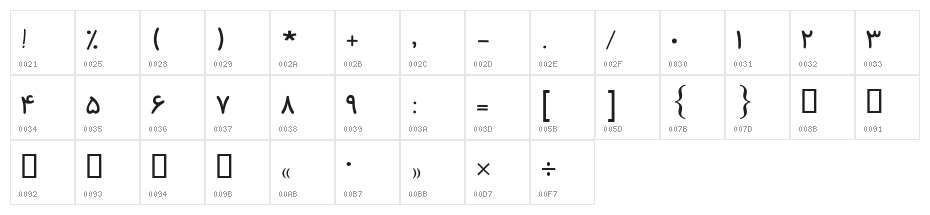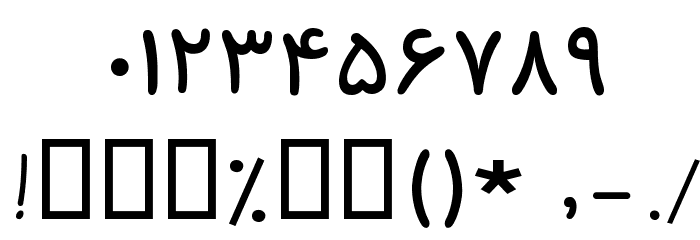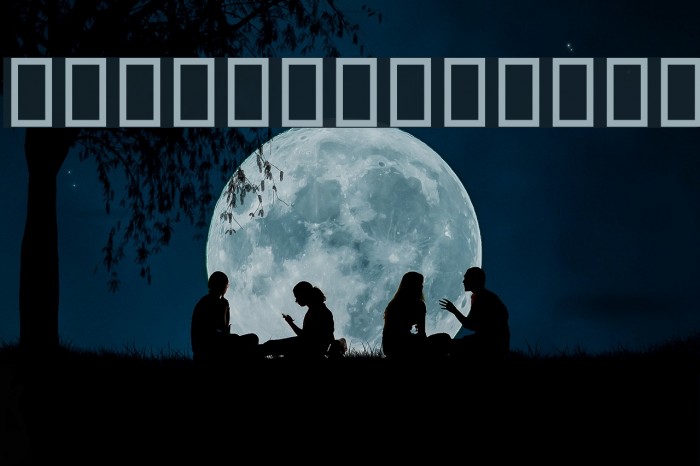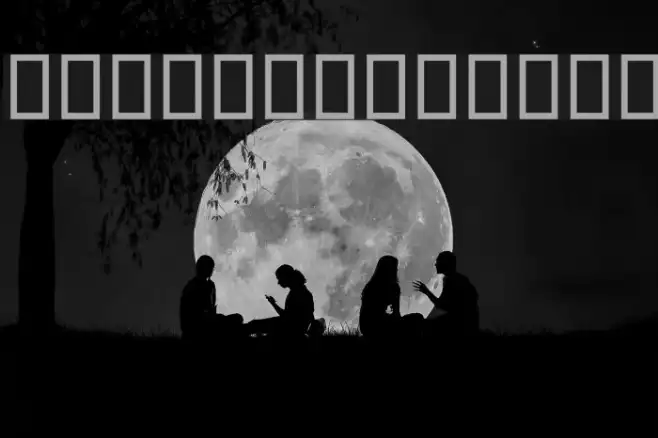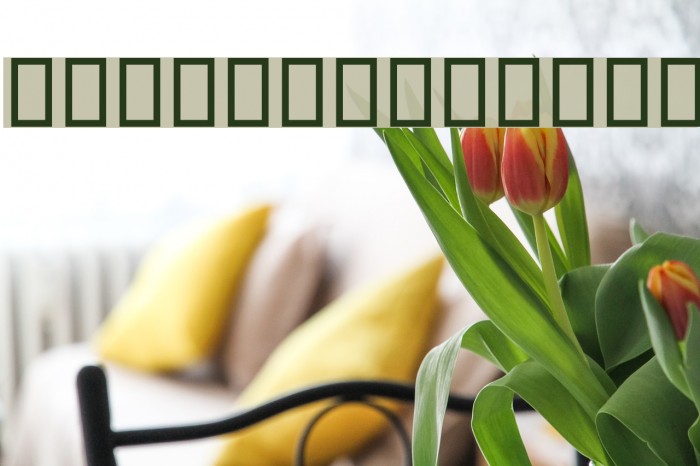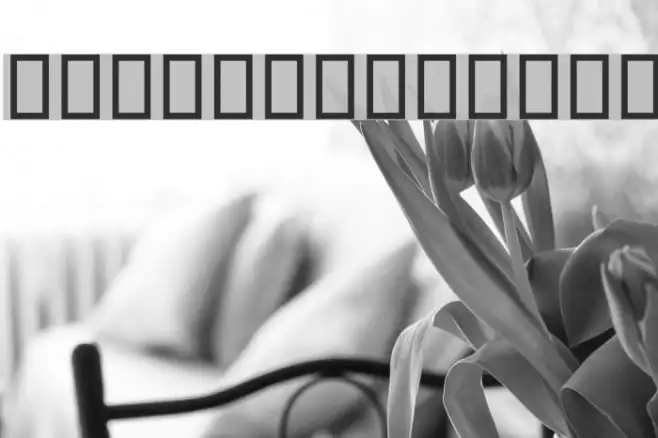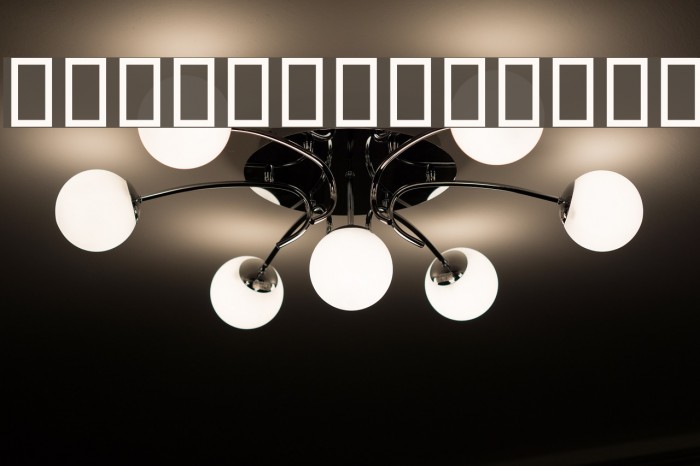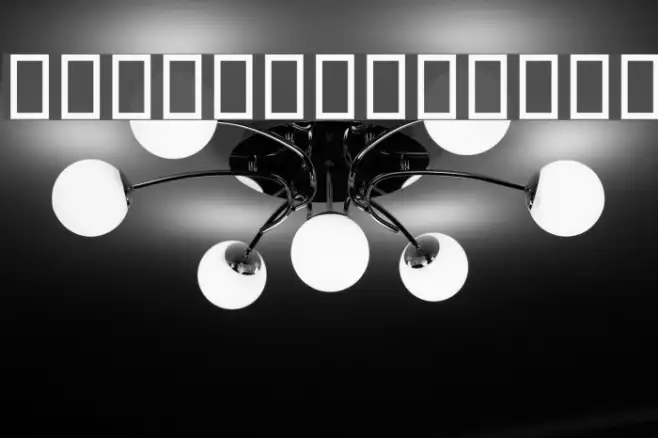
Destkhat Plain Font
Destkhat Plain Description
This font features a unique and artistic style, characterized by its flowing and cursive-like strokes. The numerals are particularly distinct, with a handwritten appearance that adds a personal touch. The special characters maintain the same fluidity, enhancing the overall aesthetic. The design is both modern and traditional, making it versatile for various creative applications.